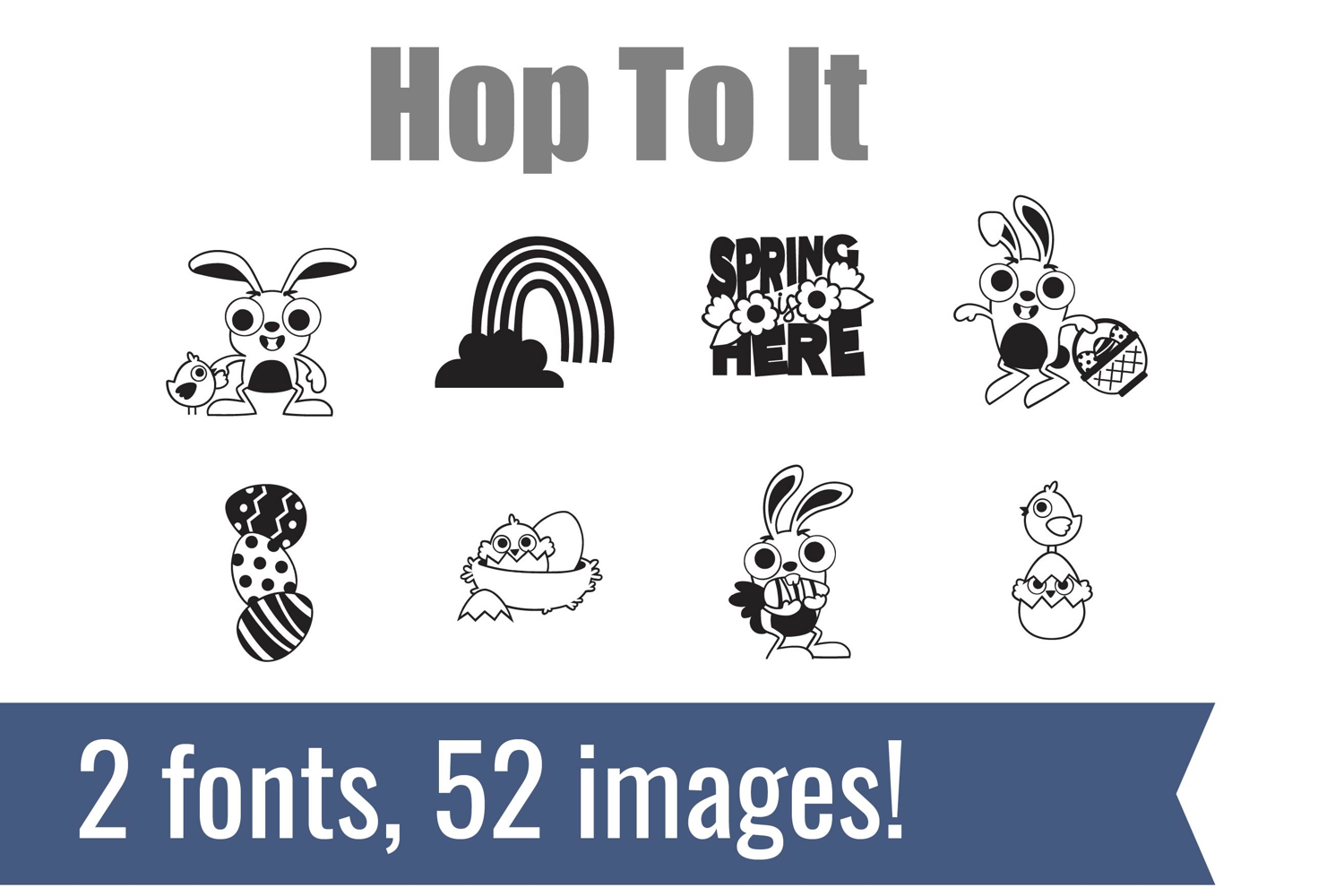
Hop To It Dingbats
Unlock endless creativity with two perfectly coordinated dingbat fonts! There are two dingbat fonts in this bundle, featuring adorable garden and Easter imagery.
Tired of spending hours searching for the perfect icons and graphics? Our dingbat fonts put dozens of cohesive, scalable designs at your fingertips. Simply install the font and type a letter to produce a pre-made image. From charming seasonal icons for holiday cards to intricate frames for your invitations, these fonts let you create stunning designs for vinyl cutting, paper crafts, planners, and more.